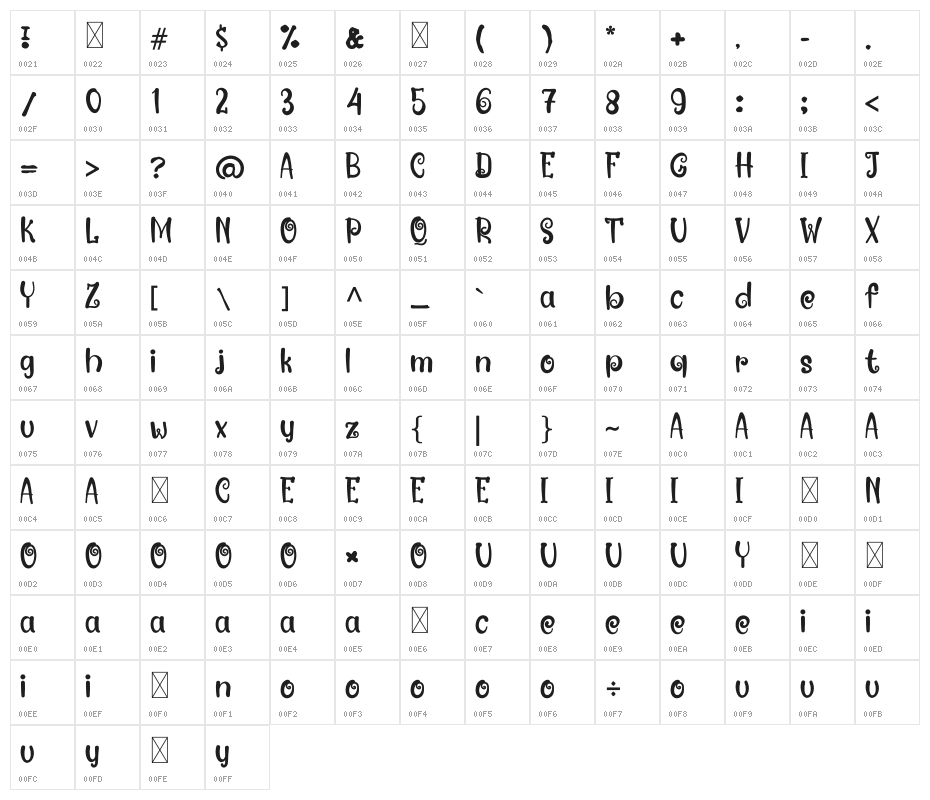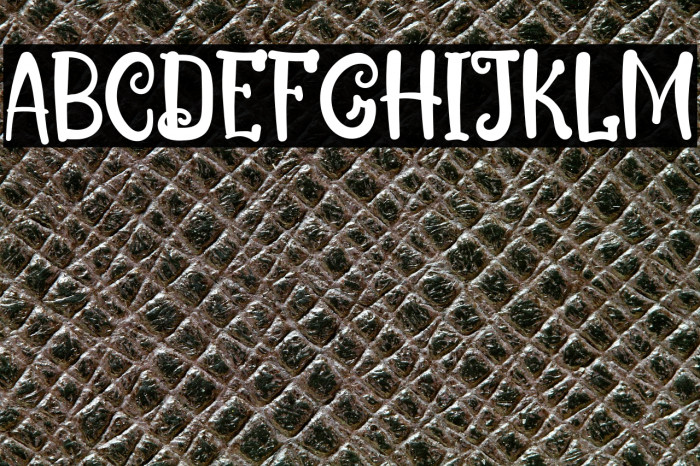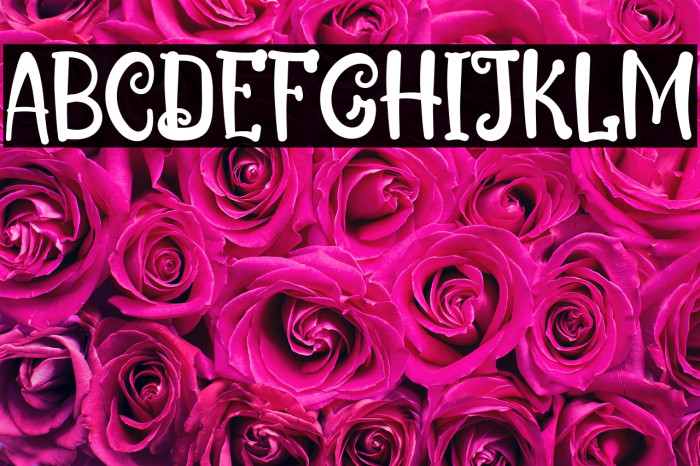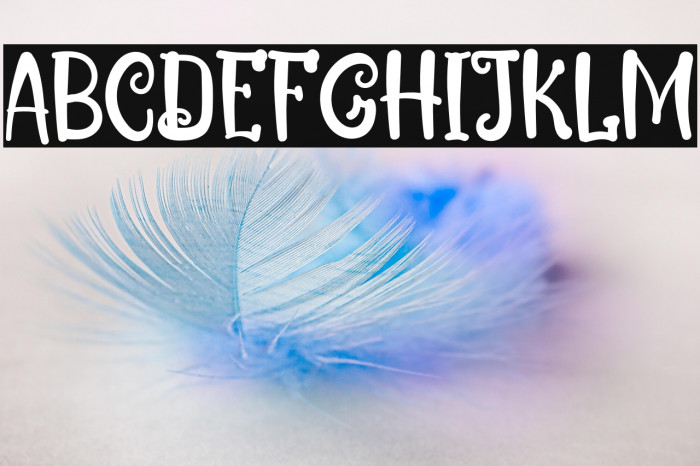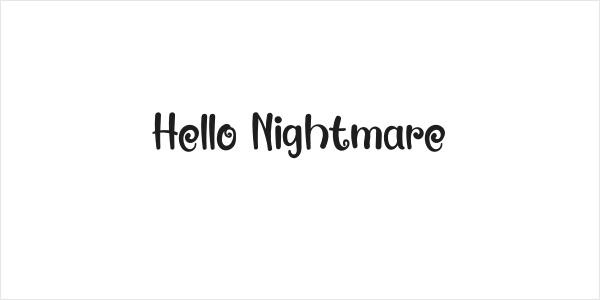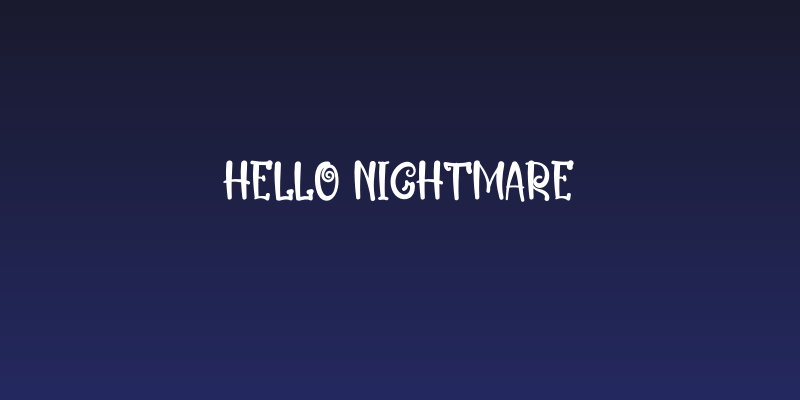
Hello Nightmare Font
Hello Nightmare Description
Playful, whimsical font with irregular, curly strokes and a hand-drawn appearance. The characters feature rounded terminals, varying stroke thickness, and decorative swirls, especially on certain letters like 'Q', 'g', and 'y'. The overall look is informal and expressive.
| Overall Style | Decorative, Playful, Whimsical |
| Use Case | Headlines, Posters, Invitations, Logos |
| Proposed Projects | Children's books, Halloween invitations, posters, party flyers, greeting cards, playful branding. |